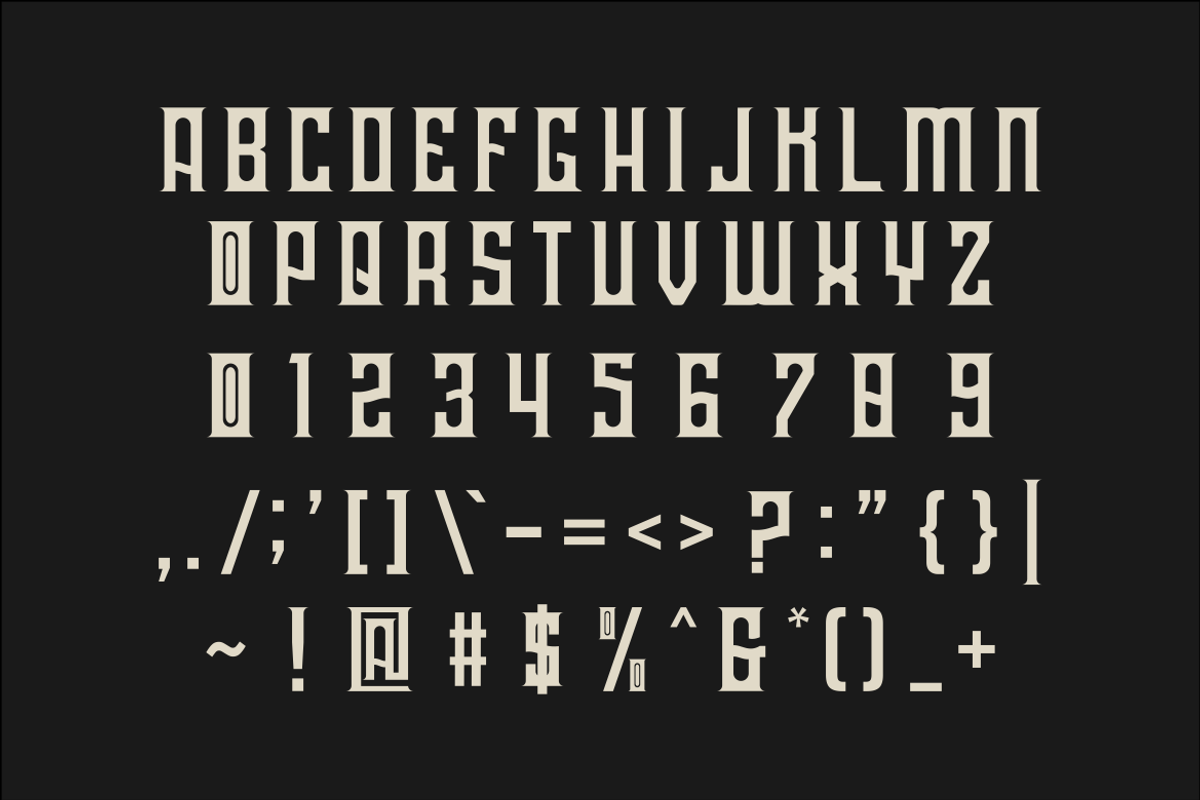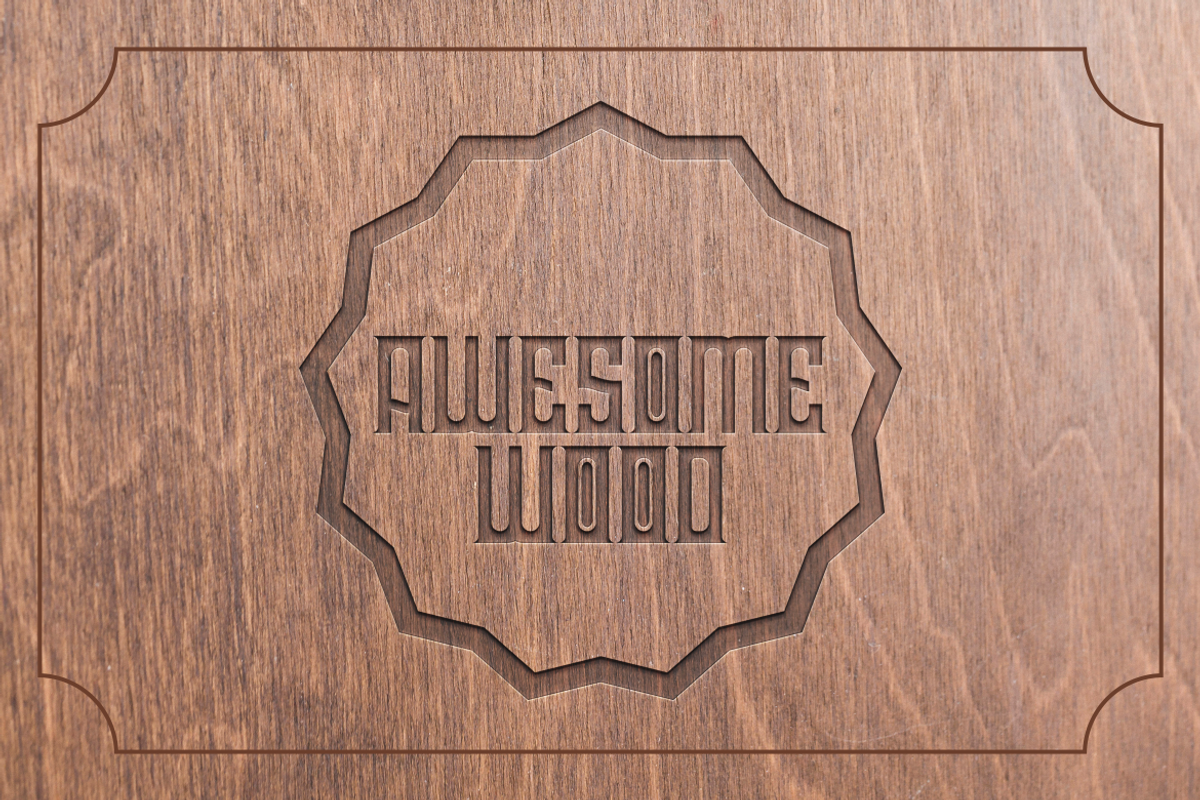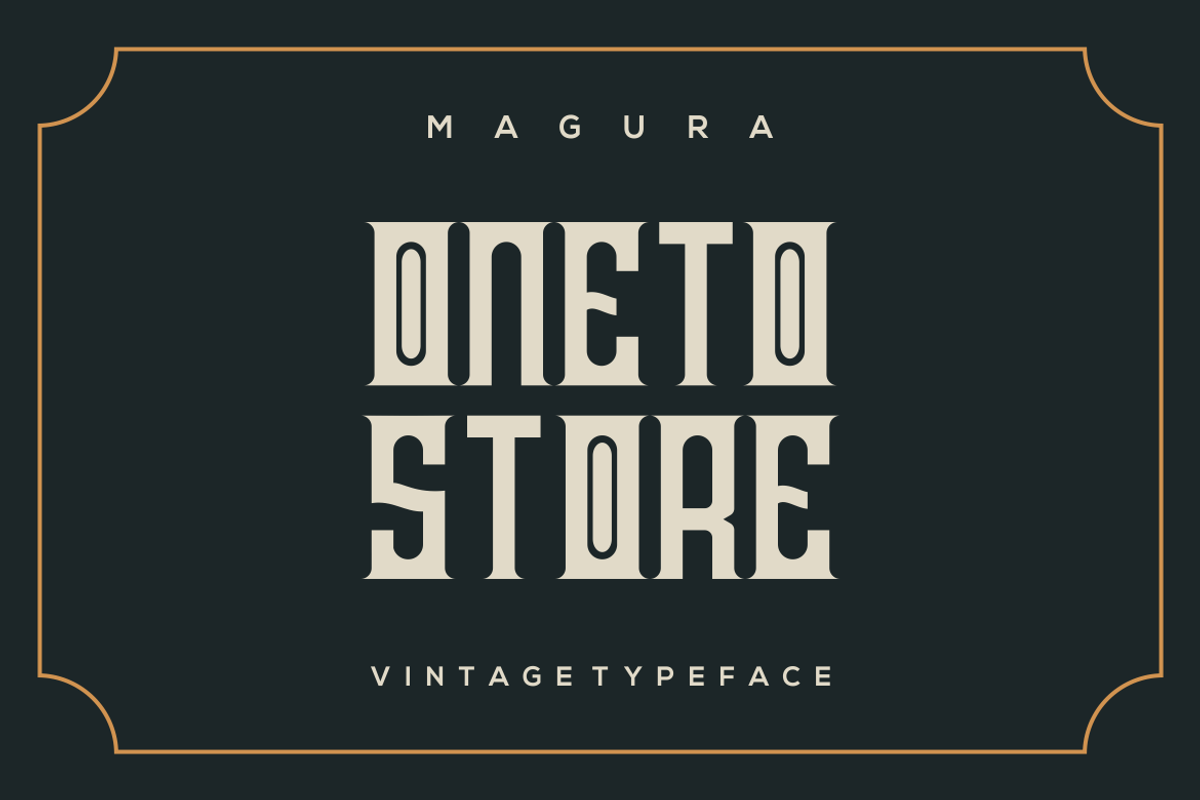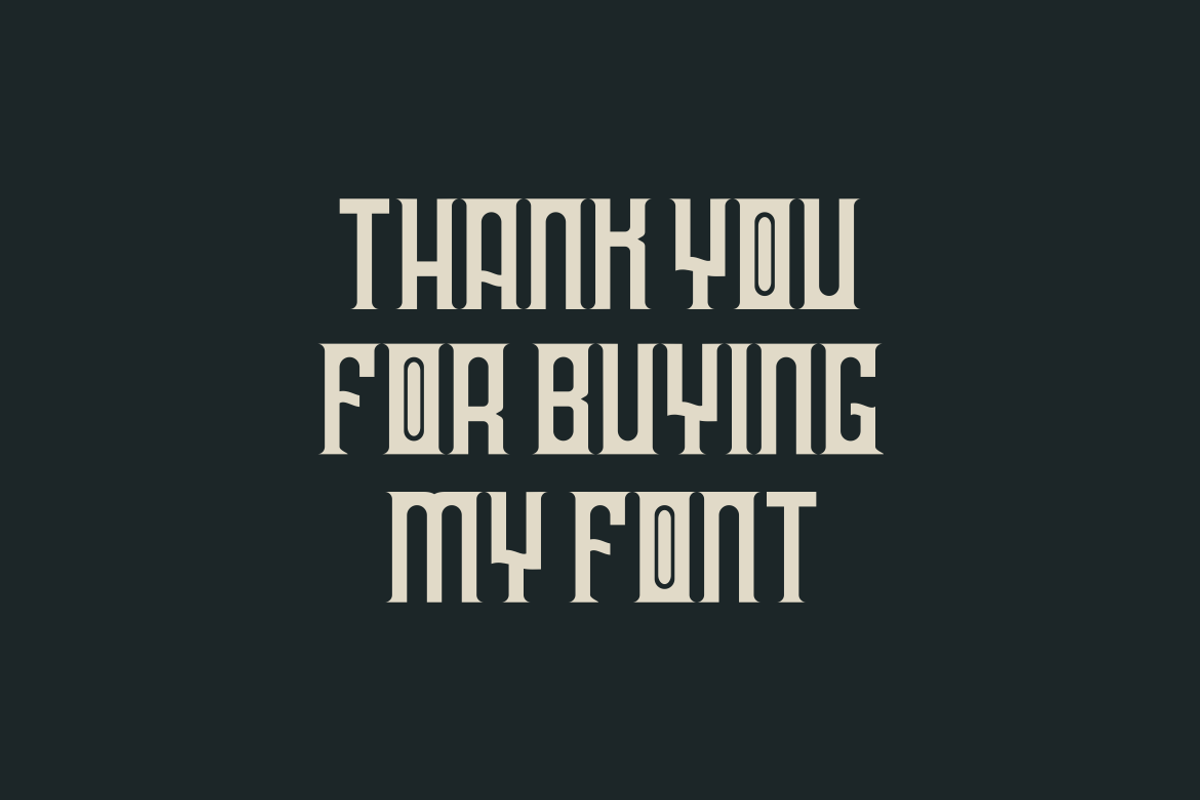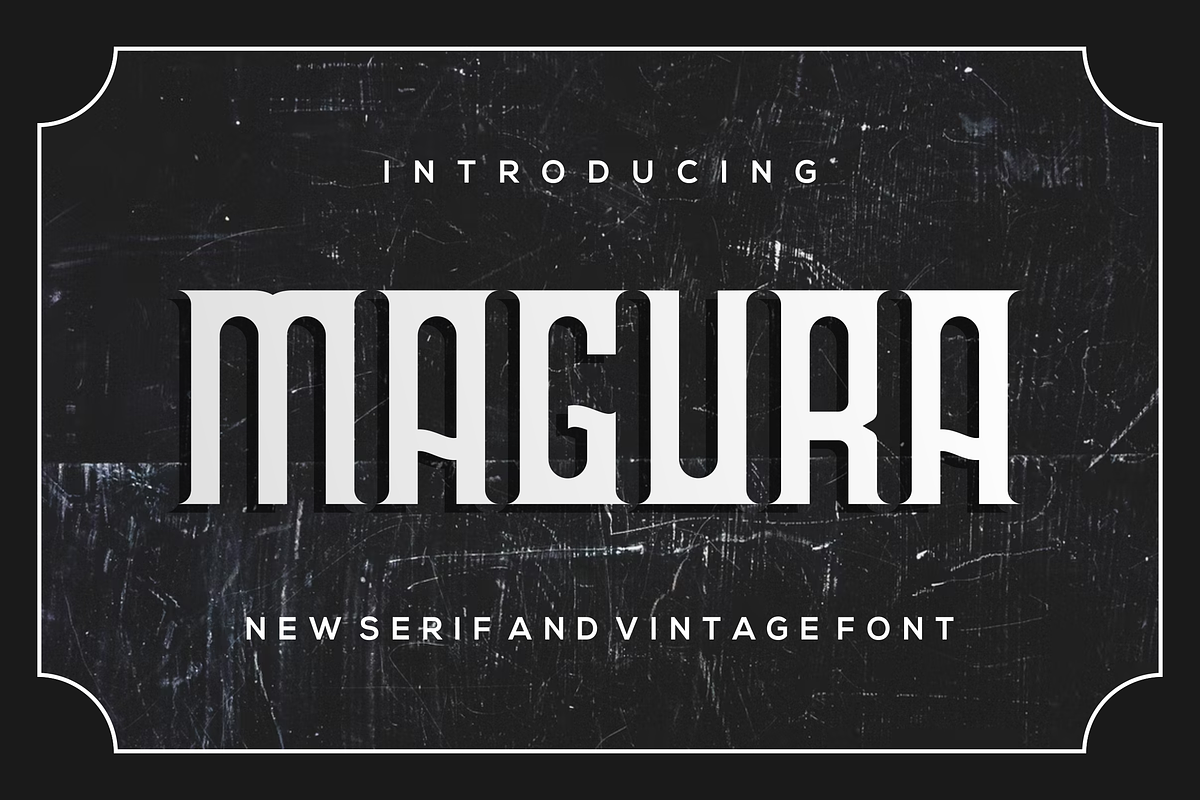
Magura
Introducing our new product Magura Font - Modern Font
Magura Font - Modern Font is a bold and authentic display font. The font is suitable for any branding project like logo, t-shirt printing, esport, and many more. outstanding in a wide range of contexts.